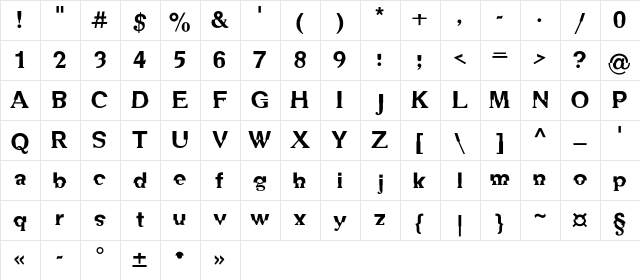
DS MechanicalC Bold Font Preview
DS MechanicalC Bold
Design Context for DS MechanicalC Typeface
DS MechanicalC is a composed and adaptable typeface that performs quietly and consistently across a wide range of design contexts. The heavy weight commands attention and anchors typographic hierarchies.